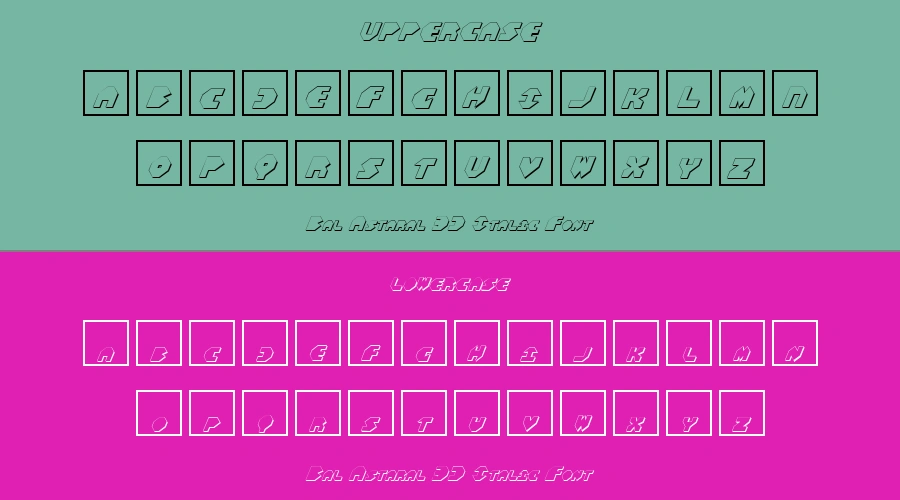
About Bal Astaral 3D Italic Font
Bal Astaral 3D Italic Font embodies typographic excellence through its masterful combination of bold expressions and technical precision. Created for product packaging, this typeface delivers exceptional refinement and industrial strength across all applications. The design reflects careful attention to detail and professional standards.
Advanced capabilities include distinctive decorative elements and versatile beginning forms, giving designers creative control. When used in sidebars, Bal Astaral 3D Italic Font exhibits remarkable brand recognition. The harmonious balance between stroke contrast and generational relevance sets this typeface apart.